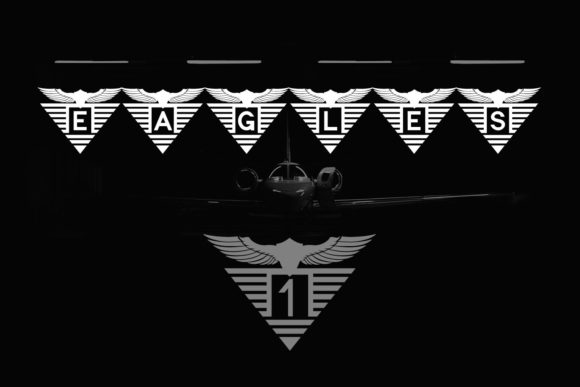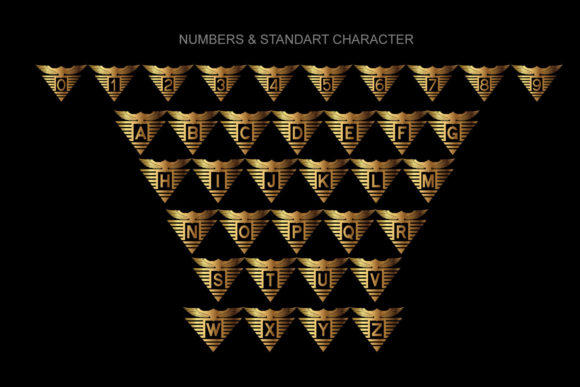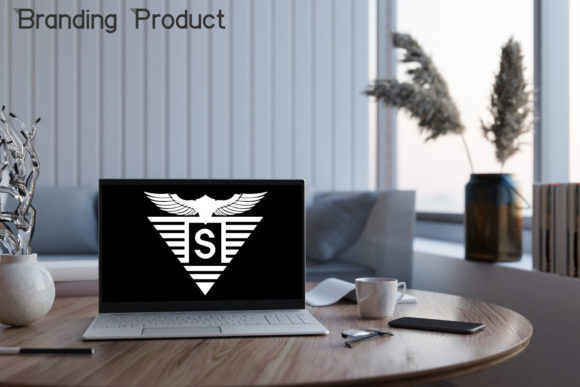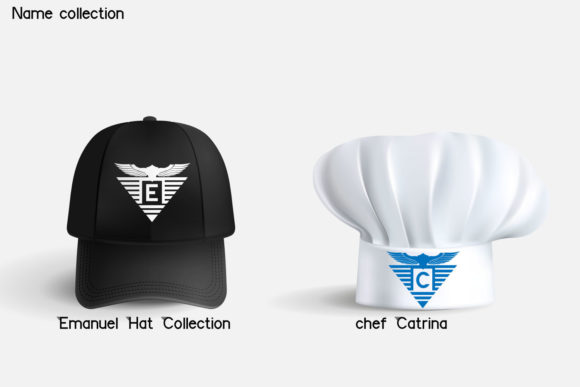
Introduction to Monogram Eagles Font
Monogram Eagles is a cool and unique decorative font.
This creative font can work for a variety of patriotic designs Have fun with this beautiful font and explore its endless variations.
Key Features of Monogram Eagles Font
Why Choose Monogram Eagles Font?